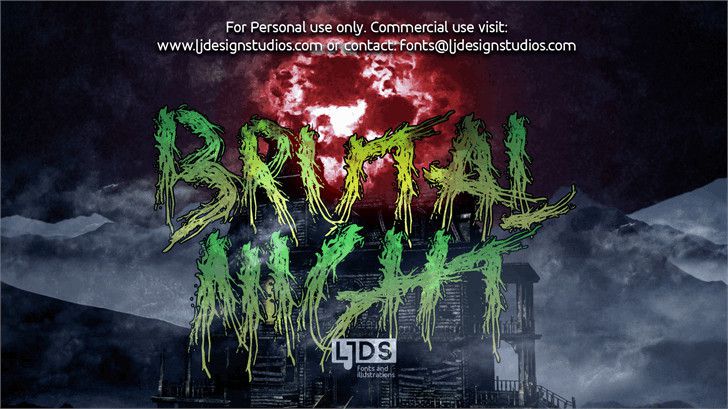
Brutal Night Font
Call it “the evolution of Dreams of Death” but you should know this:
Thinking of a good Halloween night, we created a version with a root brush, which reveals the letters somewhat horrifying and very ugly.